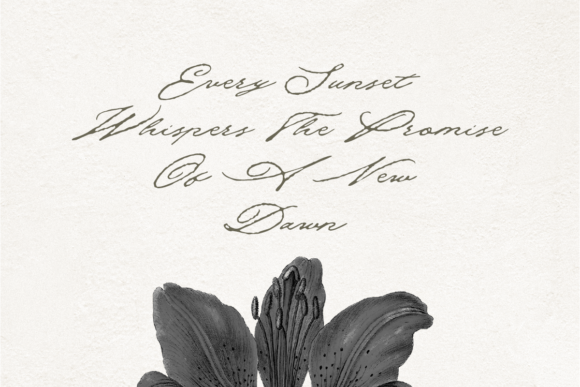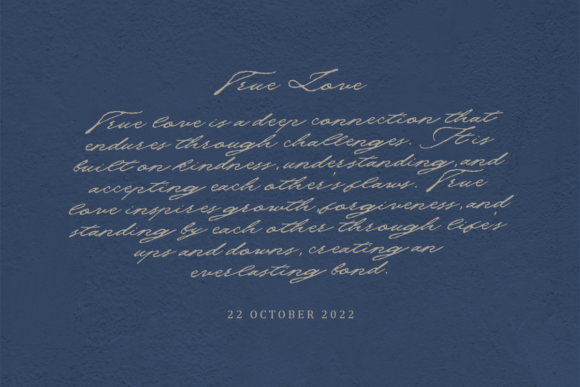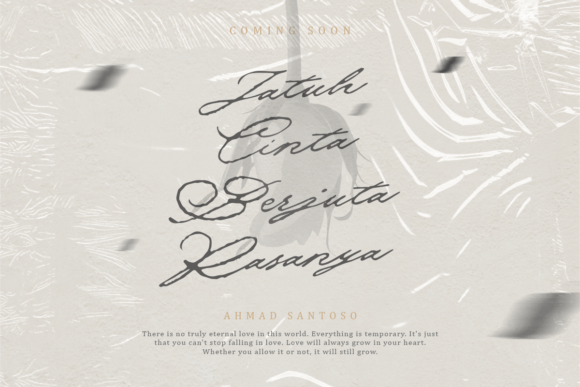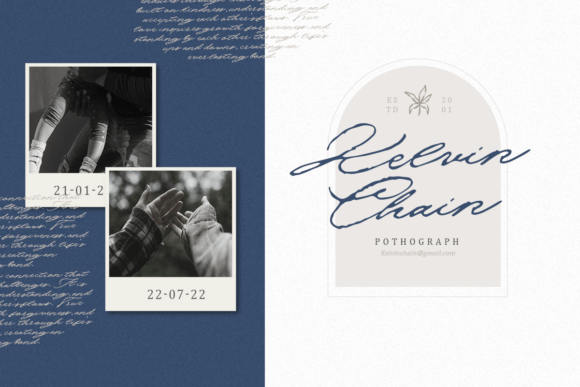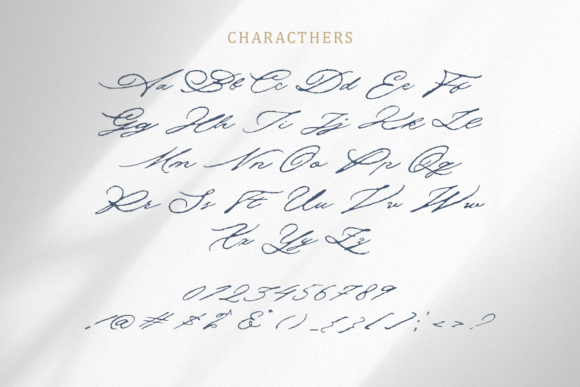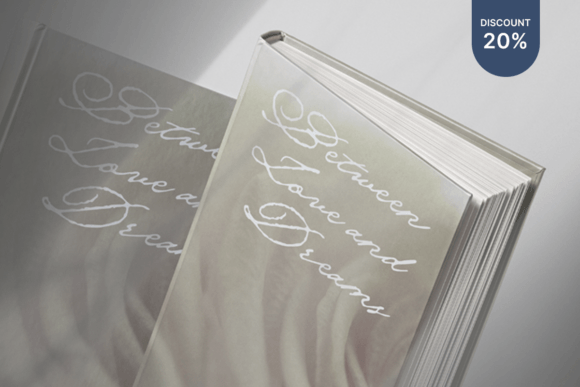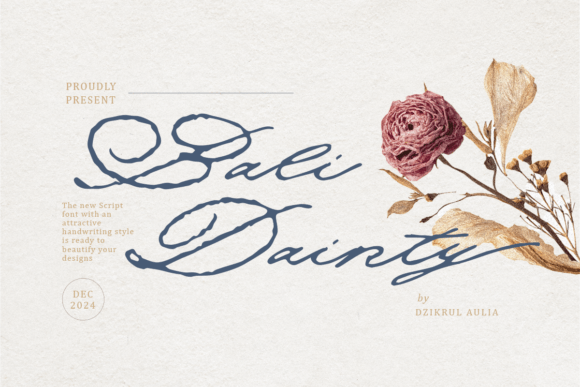
Bali Dainty Font: Elevate Your Designs with a Charming Script Font
Are you looking for a font that adds a touch of elegance and sophistication to your designs? Look no further than the Bali Dainty font. This charming script font is perfect for designers and crafters who want to add a unique and stylish touch to their work. In this article, we’ll explore the features and benefits of the Bali Dainty font and how it can elevate your designs.
What is Bali Dainty Font?
Bali Dainty is a script font that boasts a rough, yet elegant feel. Its expressive strokes and slightly imperfect edges give it a unique, hand-crafted look that sets it apart from other fonts. The font’s rustic charm and refined beauty make it perfect for adding personality to invitations, logos, and branding projects.
Key Features of Bali Dainty Font
• Unique and Hand-Crafted Look: The Bali Dainty font has a distinctive, hand-crafted look that adds a touch of warmth and personality to your designs.
• Expressive Strokes: The font’s expressive strokes give it a sense of movement and fluidity, making it perfect for creating elegant and sophisticated designs.
• Rough yet Elegant Feel: The font’s rough texture and elegant feel make it a versatile font that can be used for a wide range of design projects.
• Perfect for Invitations and Branding Projects: The Bali Dainty font is ideal for creating beautiful invitations, logos, and branding projects that require a touch of elegance and sophistication.
Benefits of Using Bali Dainty Font
The Bali Dainty font offers a range of benefits for designers and crafters. Here are just a few:
• Adds Personality to Your Designs: The Bali Dainty font adds a unique and stylish touch to your designs, setting them apart from others.
• Versatile and Easy to Use: The font is easy to use and can be applied to a wide range of design projects, from invitations and logos to branding and packaging.
• High-Quality and Professional: The Bali Dainty font is a high-quality font that is perfect for professional designers and crafters who want to create stunning designs.
How to Use Bali Dainty Font in Your Designs
Using the Bali Dainty font in your designs is easy. Here are a few tips to get you started:
• Pair it with Other Fonts: The Bali Dainty font pairs well with other fonts, such as sans-serif fonts, to create a beautiful and contrasting design.
• Use it for Headings and Titles: The font is perfect for headings and titles, adding a touch of elegance and sophistication to your designs.
• Experiment with Different Colors and Textures: The Bali Dainty font looks great in a range of colors and textures, so don’t be afraid to experiment and find the perfect combination for your design.
The Bali Dainty font is a charming script font that adds a touch of elegance and sophistication to any design. Its unique and hand-crafted look, expressive strokes, and rough yet elegant feel make it perfect for designers and crafters who want to create stunning designs. Whether you’re creating invitations, logos, or branding projects, the Bali Dainty font is a versatile and high-quality font that is sure to elevate your designs.
Here are a few tips for designers and crafters who want to get the most out of the Bali Dainty font:
• Use it to Add a Personal Touch: The Bali Dainty font is perfect for adding a personal touch to your designs, making them more unique and special.
• Experiment with Different Design Styles: The font can be used in a range of design styles, from modern and minimalist to vintage and rustic.
• Don’t be Afraid to Mix and Match: The Bali Dainty font can be paired with other fonts, colors, and textures to create a beautiful and eye-catching design.